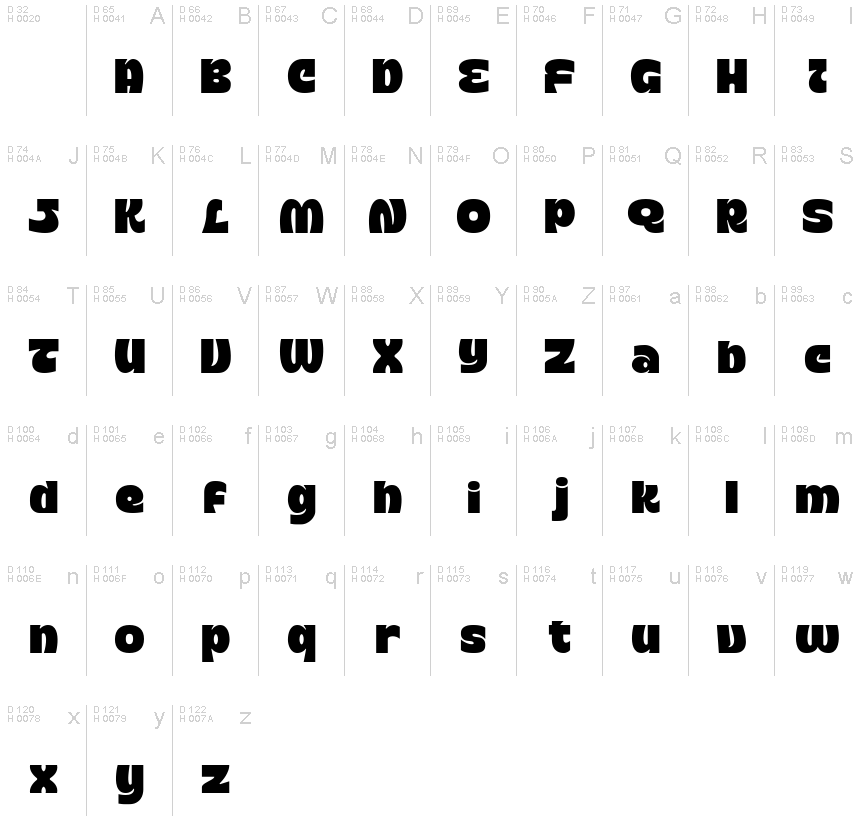
Typologic DEMO Normal
Typologic, crafted by Dharmas Studio, is a bold display font that makes a statement with its robust and dynamic form. It carries a modern aesthetic with curves that are as daring as they are refined, creating an impactful visual rhythm. This font's character comes from its distinctive style that combines both elegance and strength, making it perfect for branding projects, advertising headlines, and any design work where attention-grabbing typography is key. Its assertive presence ensures visibility and readability even from afar, ideal for posters or signage where immediate impact is paramount.
Typologic embodies a balance of contemporary flair and time-tested boldness — an excellent choice for designers looking to infuse their work with characterful typography.